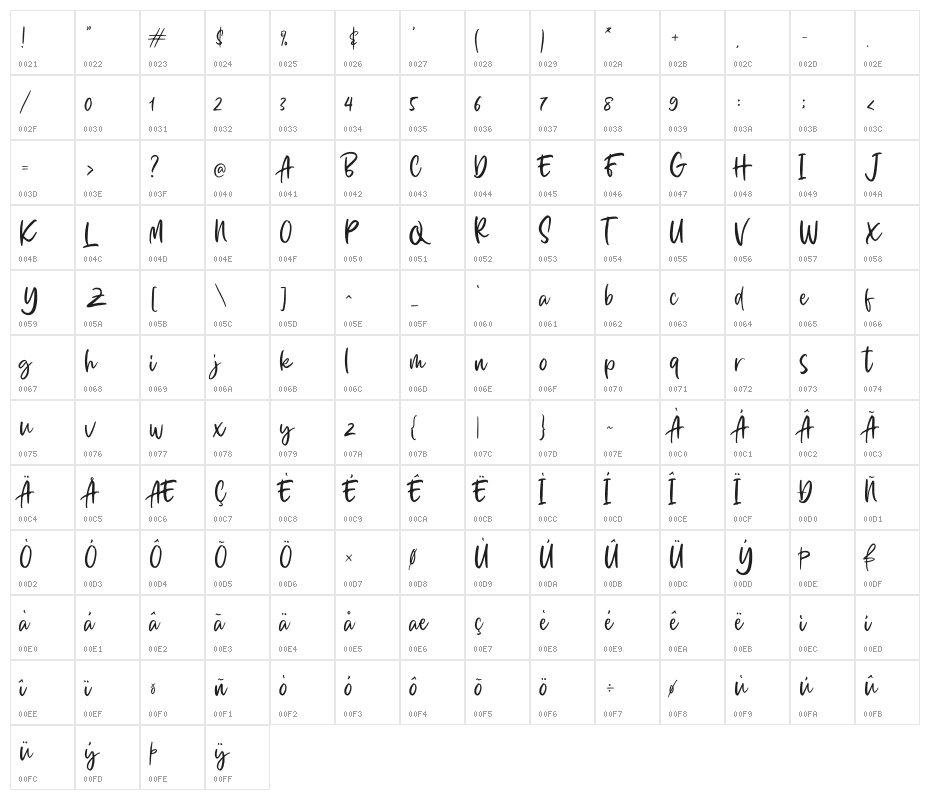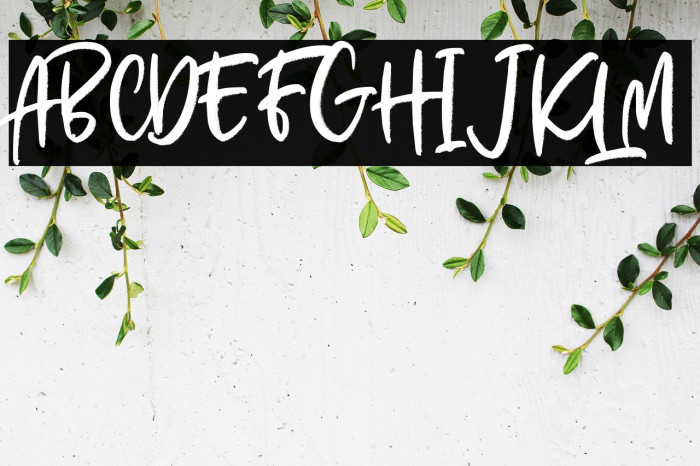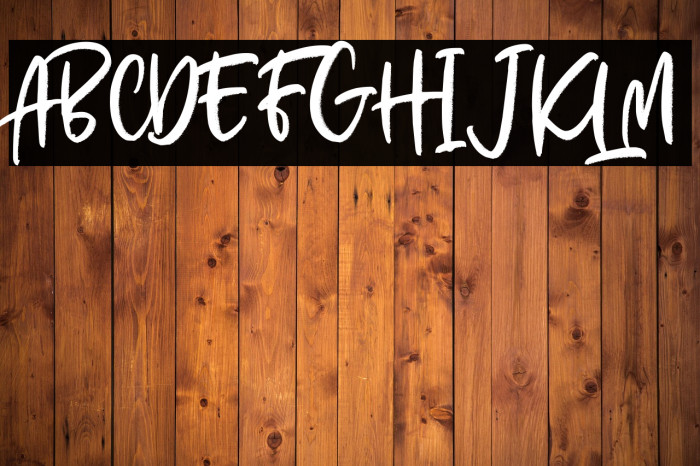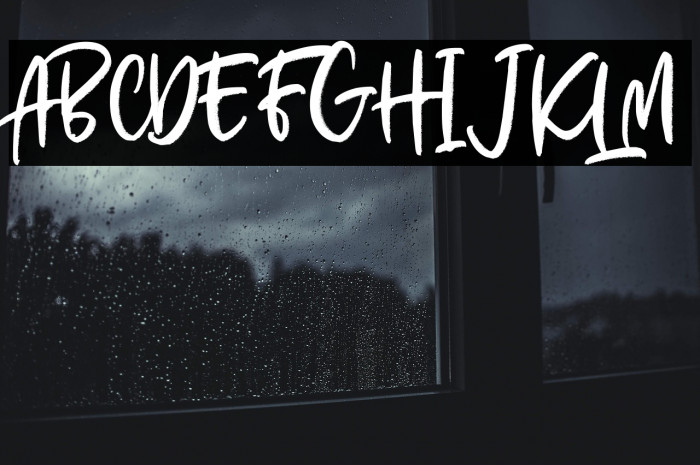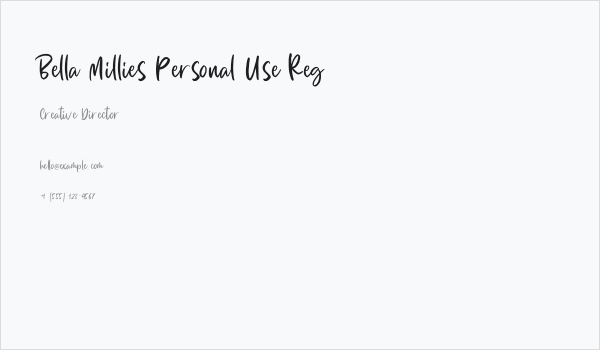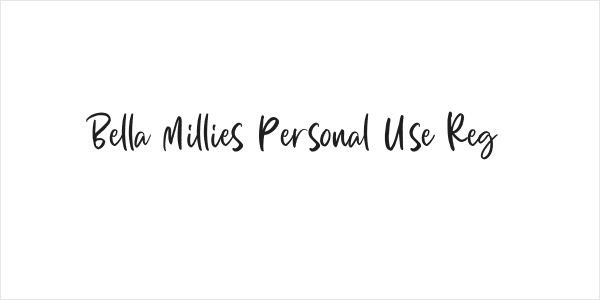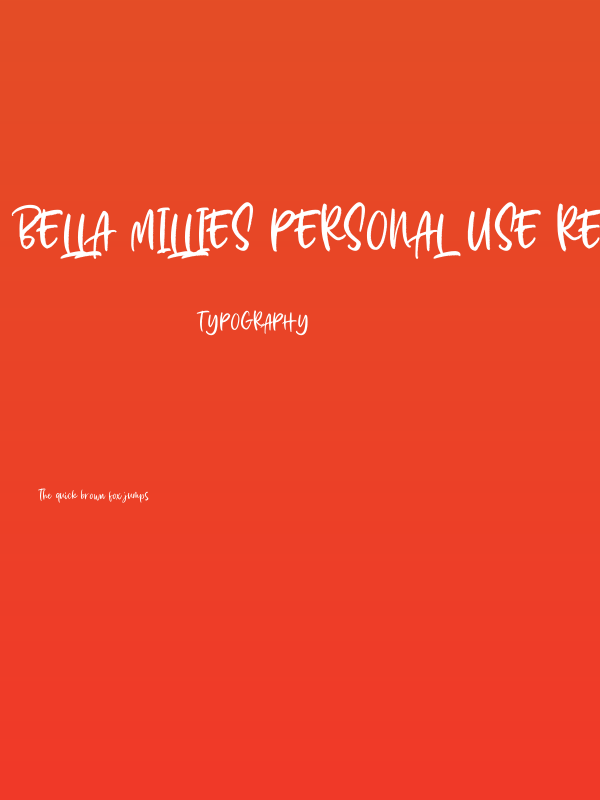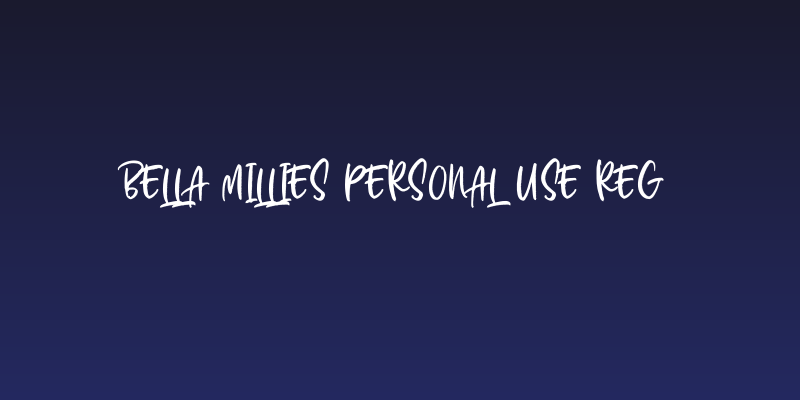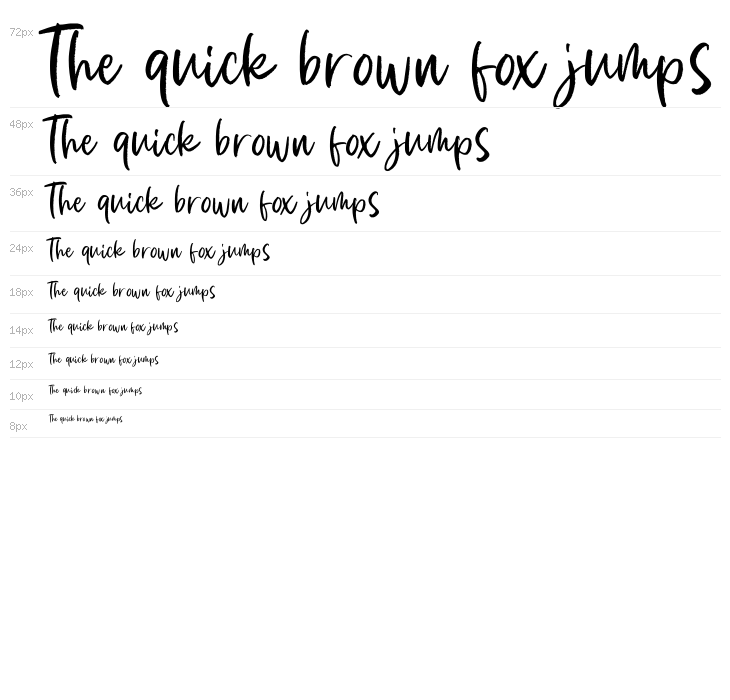
Bella Millies Personal Use Reg Font
Bella Millies Personal Use Reg Description
This font exudes a playful and casual handwritten style, characterized by its fluid and dynamic strokes. The letters are slightly slanted, giving it an informal and friendly appearance. The uppercase letters are bold and prominent, while the lowercase letters maintain a consistent flow, enhancing readability. The numerals are well-integrated with the overall style, and the special characters add a touch of whimsy. This font is perfect for projects that require a personal touch, such as greeting cards, invitations, or social media graphics. Its unique charm lies in its ability to convey warmth and approachability, making it suitable for a variety of creative applications.
| Proposed Projects | Ideal for greeting cards, invitations, social media graphics, and personal branding. |